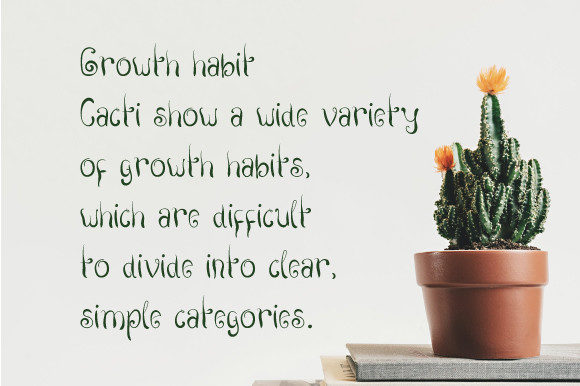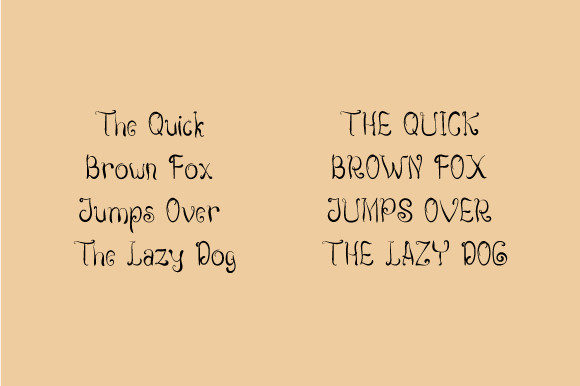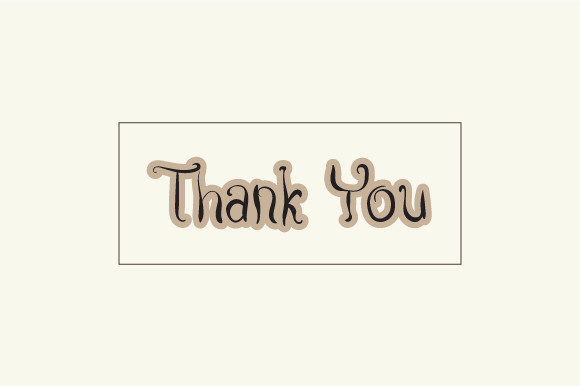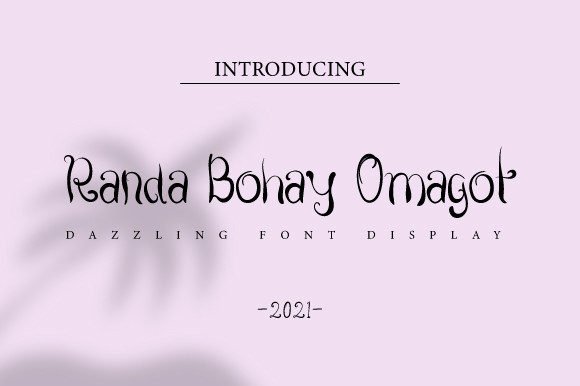
Introduction to Randa Bohay Omagot Font
Randa Bohay Omagot is a whimsical and chic handwritten font.
Featuring characters that dance along the baseline, this font will add a luxury spark to any design project that you wish to create .